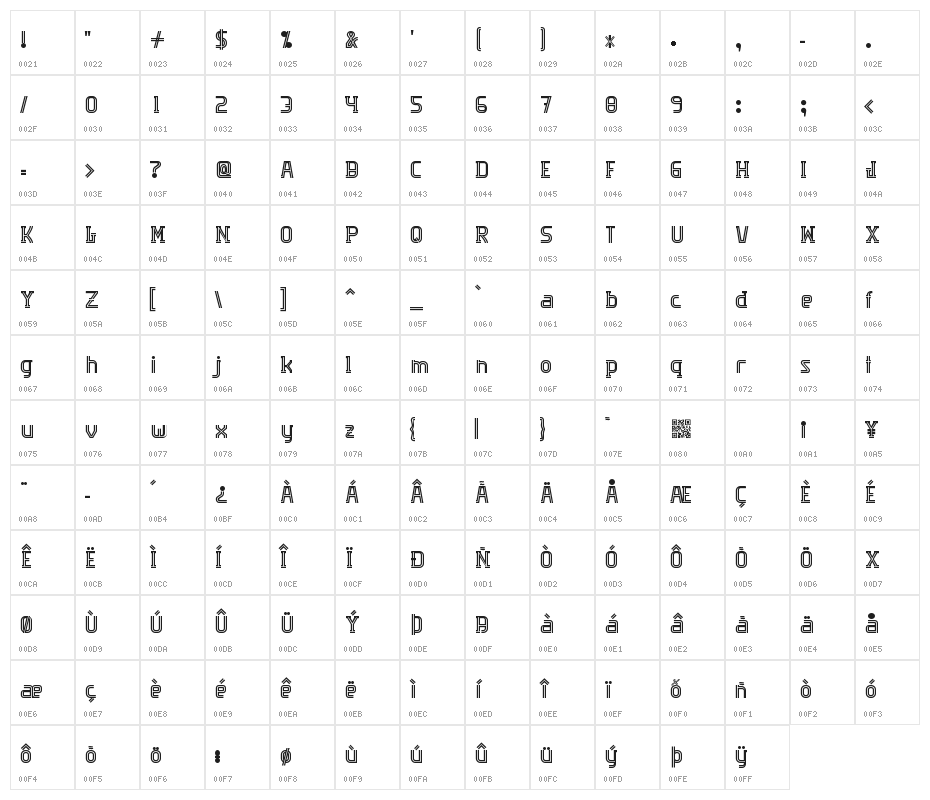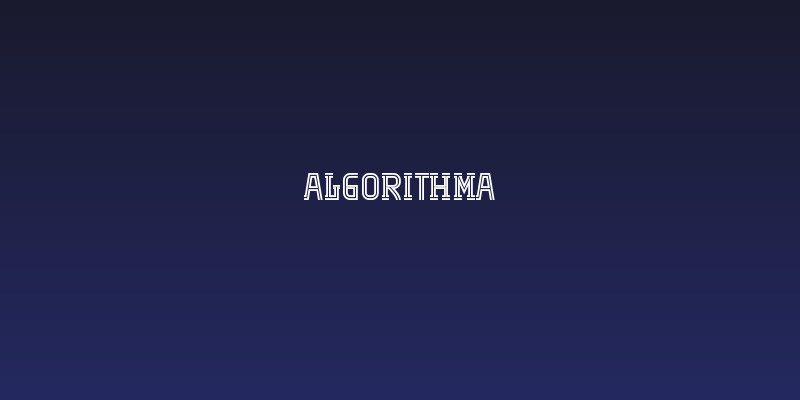
Algorithma Font
Algorithma Description
This font features a bold, geometric design with a distinct double-line structure that creates a sense of depth and dimension. The uppercase letters are particularly striking, with sharp angles and clean lines that give a modern, futuristic feel. The lowercase letters maintain the same geometric style, offering a cohesive look across both cases. Numbers and special characters follow the same design principles, ensuring consistency throughout. The font's unique style makes it ideal for projects that require a standout, eye-catching typeface.
| Proposed Projects | Ideal for branding, posters, headlines, and any design requiring a modern, standout typeface. |